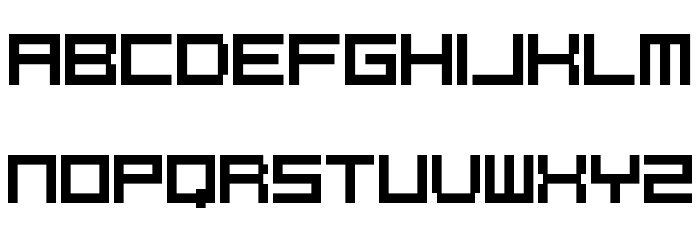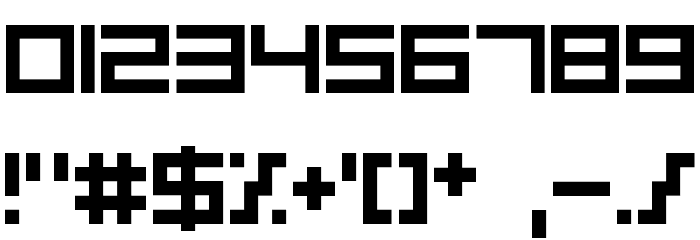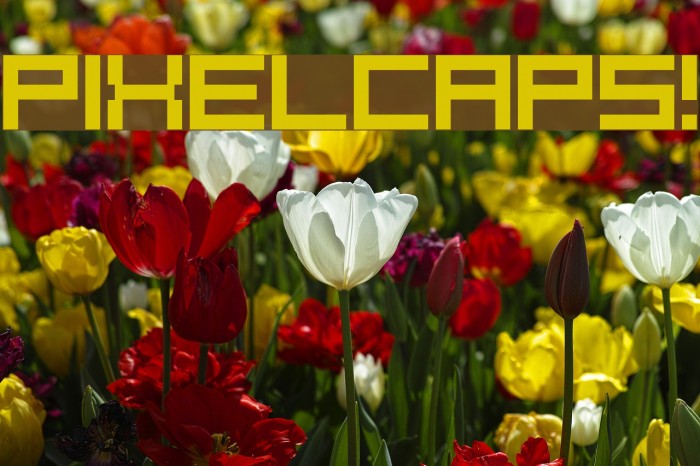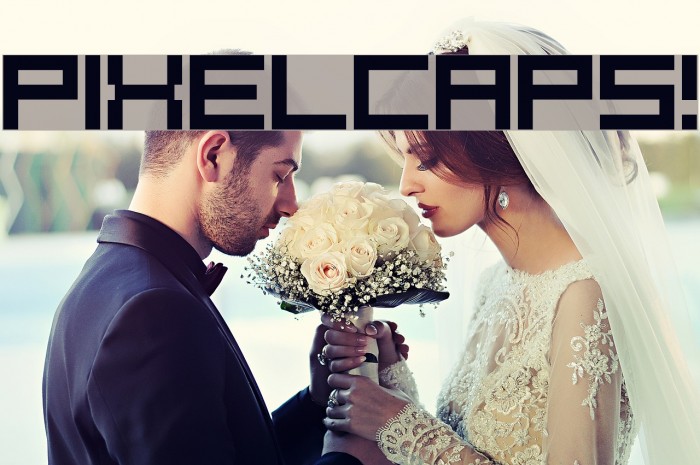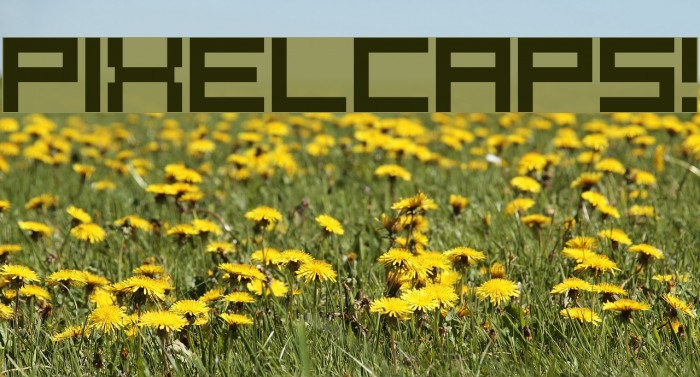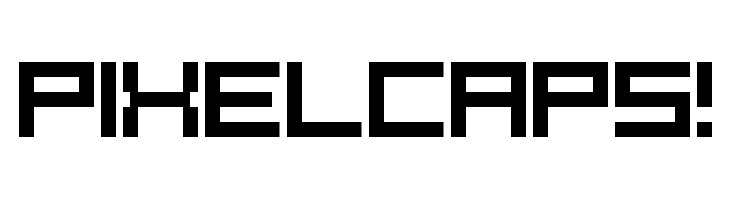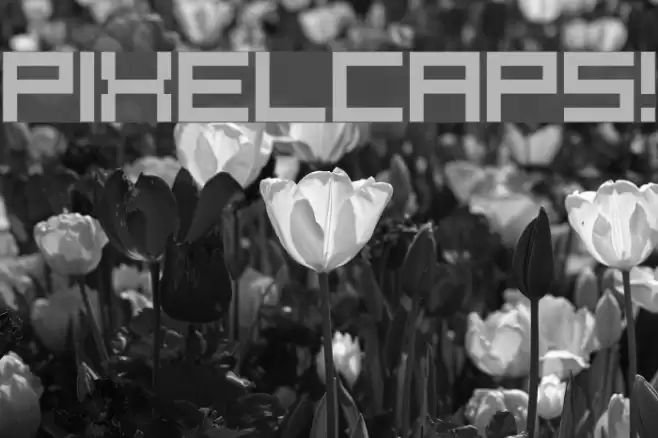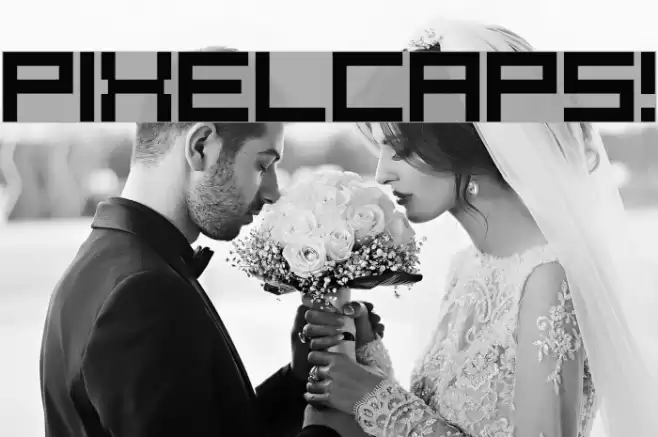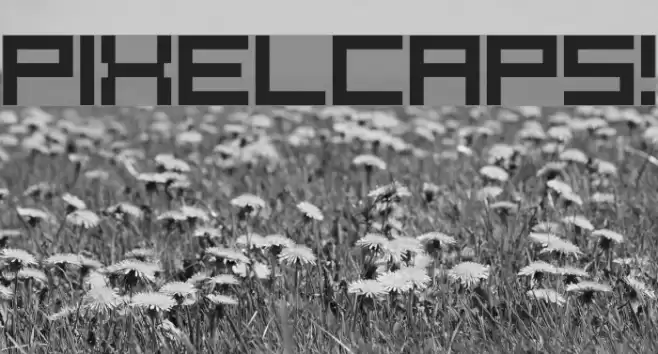
PixelCaps! Font
This font features a bold, pixelated design reminiscent of early digital displays and retro video games. Each character is constructed with a blocky, grid-like structure, giving it a distinctly digital and geometric appearance. The uniformity in stroke width across all characters contributes to a cohesive and consistent look. The uppercase and lowercase letters maintain the same height, reinforcing the pixelated aesthetic. Numbers and special characters are designed with the same pixelated style, ensuring visual harmony throughout. This font is ideal for projects that aim to evoke nostalgia or a tech-inspired theme.
- Proposed Projects: Ideal for retro video game graphics, tech-themed posters, digital art projects, and any design requiring a nostalgic digital feel.
- Overall Style: Retro, Digital